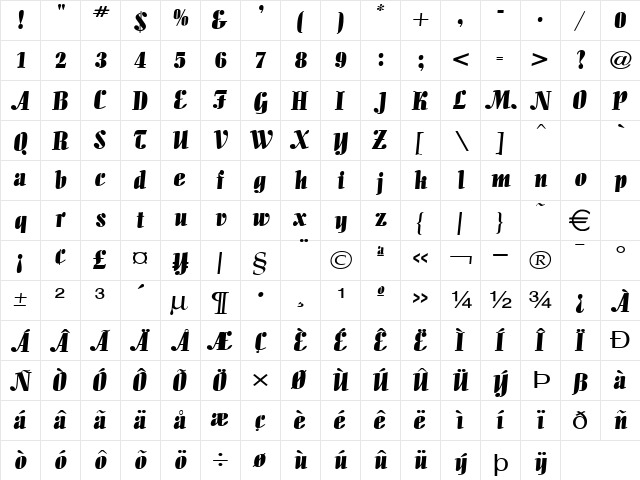
AloeExtended Normal
Design Context for AloeExtended Typeface
AloeExtended is a composed and adaptable typeface that performs quietly and consistently across a wide range of design contexts.